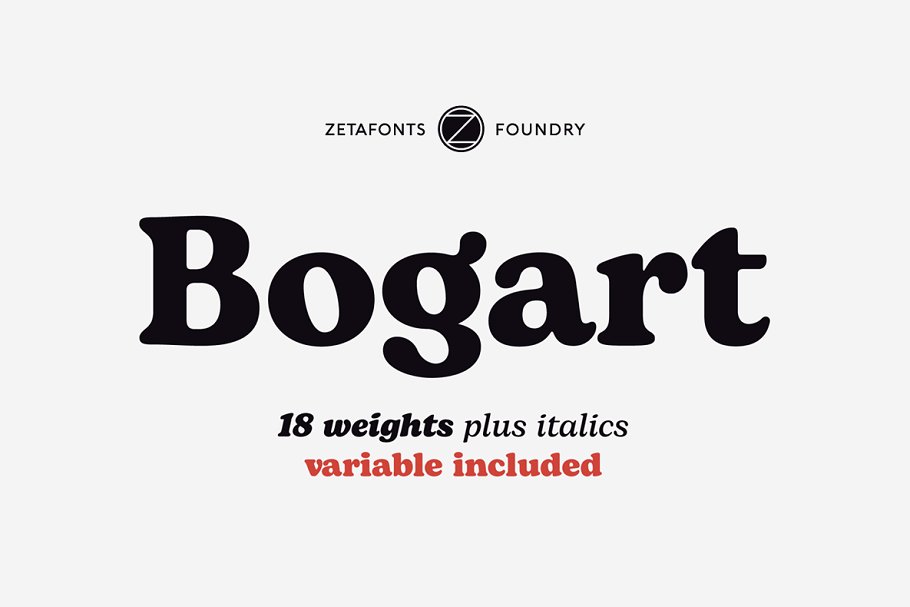
Introducing Bogart, the perfect font family for anyone looking to add a touch of vintage charm to their designs. Created by renowned designer Francesco Canovaro, Bogart features 28 stunning serif fonts that pay homage to the iconic look of low-contrast old-style fat faces. Inspired by Cooper Black and Goudy Heavy Face, two of the most recognizable typefaces of the 1960s and 1970s, Bogart is positively bursting with hippie energy and exuberant vitality.
But Bogart isn't just a throwback to the past. Canovaro has also included elements of the idiosyncratic American old style typeface Windsor, creating a font family that's as versatile as it is unique. With nine standard weights, nine alternate weights, nine italics, and two variable fonts, Bogart offers a wealth of options for any project.
And it's not just about looks. With over 1600 glyphs in each weight and support for 219 languages using Latin, Cyrillic, and Greek alphabets, Bogart is also incredibly functional. It includes a complete set of OpenType features, including alternate forms, discretionary ligatures, small capitals, stylistic sets, positional numbers, case-sensitive, terminal and initial swash forms, making it perfect for editorial use.
But Bogart isn't just for editorial use. It's also great for display and packaging usage, where readability and personality must match design space needs. Whether you're designing a logo, creating an eye-catching headline, or crafting a beautifully balanced block of text, Bogart is the perfect choice.